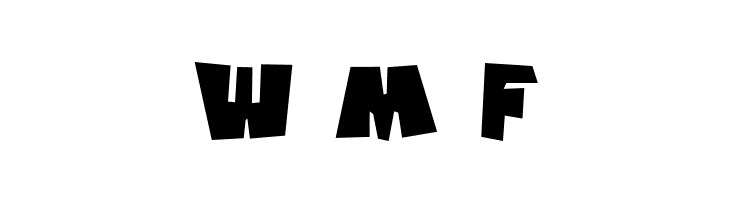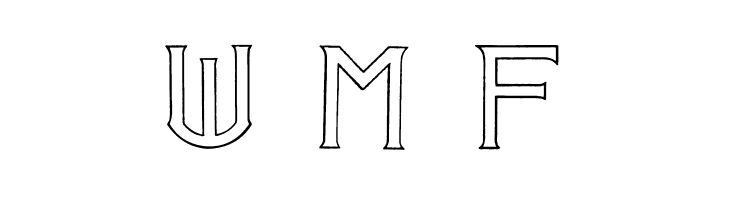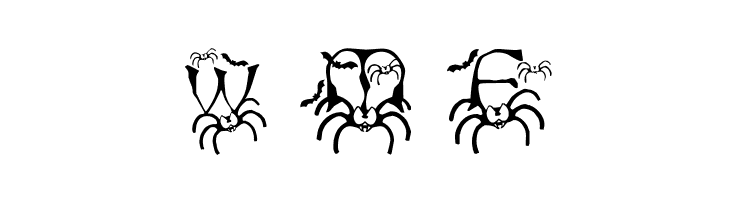
A classic serif font with a condensed style and moderate contrast, ideal for formal use.
A gritty, horror-themed font with distressed, textured characters and unique special symbols.
A decorative dingbat font featuring iconic character illustrations.
A bold, circular font with high contrast and playful style.
A playful, dynamic font with exaggerated, uneven letterforms and a bold presence.
A modern, outline-style font with geometric and artistic characteristics.